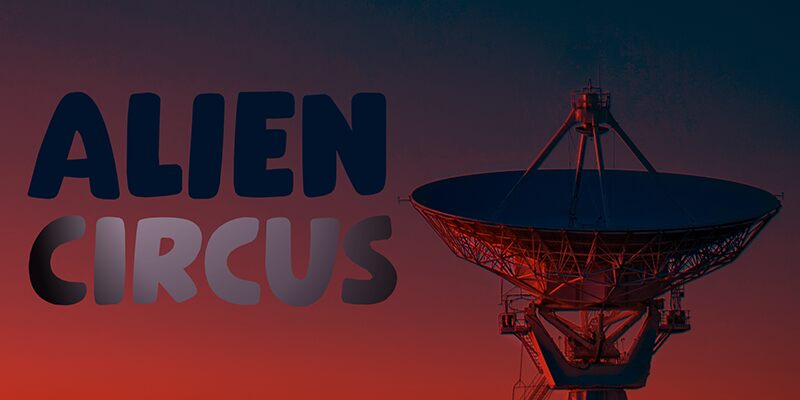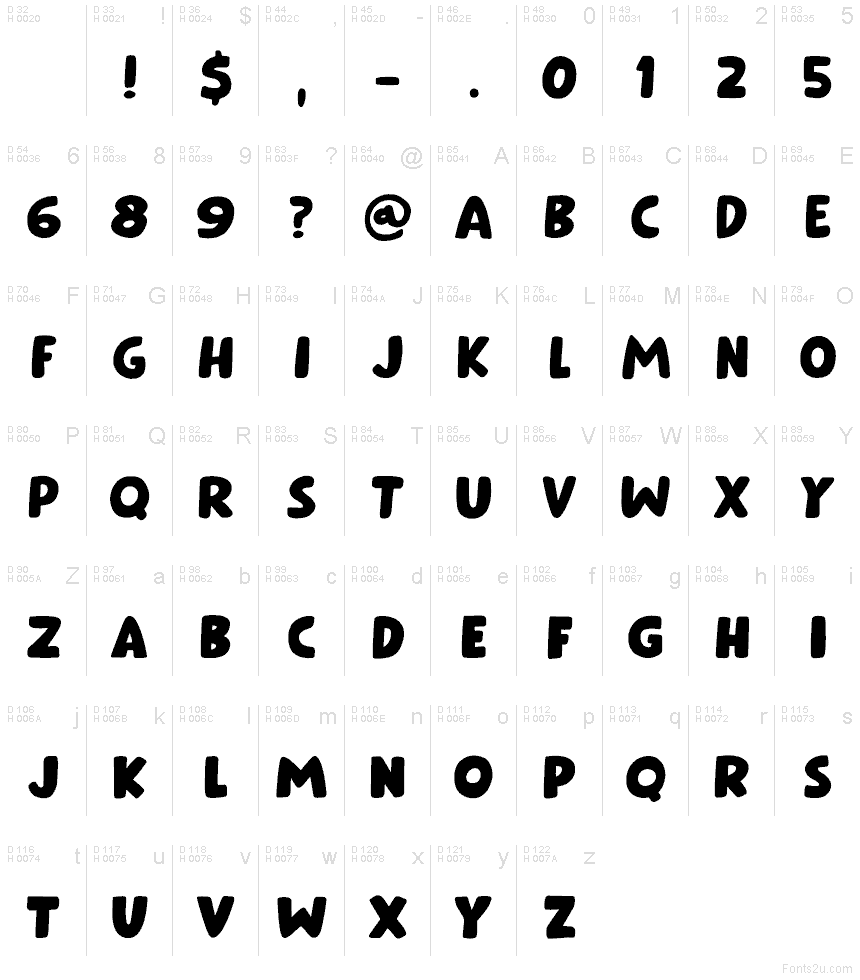
Alien Circus DEMO Regular
Alien Circus font, a creation by Hanoded, is a bold display typeface with a cartoon style. Its retro-inspired look combines geometric influences and whimsical tones, capturing attention with playful, cartoon-like aesthetics. Perfect for bringing lively and oversized graphics to smaller teams.
Free for experimentation in branding, titles, movie posters, typography art showcases or headlines; it also creates the ideal jump-off point where logos need help standing out while still being memorable– all while balancing offline applications like flyers/ invitations due to its friendly letterforms juxtaposition of new techniques that hold eye-catching power without clutter.